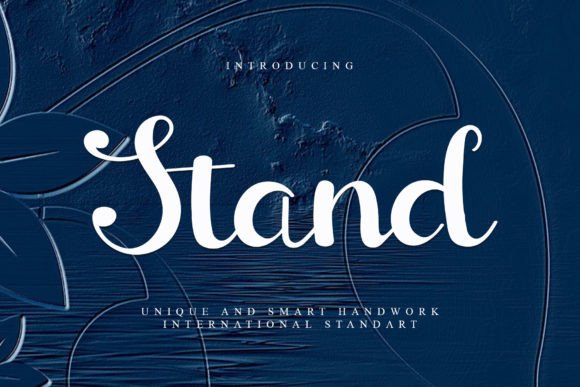
Step into the world of Stand Font, a breathtaking script typeface that dances across your designs with grace and sophistication. This remarkable font, brought to life by the talented giartstudios, is a symphony of creativity, perfectly suited for a myriad of projects that demand a touch of handwritten charm.
With its enchanting strokes and flowing curves, Stand Font evokes a sense of individuality and artistry. It seems to glide effortlessly across the page, capturing attention with its timeless elegance. Whether you're crafting wedding invitations that exude romance or creating greeting cards that convey heartfelt messages, Stand Font adds a layer of refinement that elevates your designs to new heights.
Imagine your designs adorned with Stand Font, transforming into captivating billboards that command attention from afar. Its bold presence ensures your message stands out, leaving a lasting impression on all who behold it. Unleash your creativity and let Stand Font be your muse as you craft logos that embody the essence of your brand. Let it dance across business cards, leaving a trail of elegance in its wake.
But the allure of Stand Font extends far beyond these traditional applications. It's a font that knows no bounds, seamlessly adapting to any project that requires a touch of handwritten artistry. Let it adorn your social media posts, adding a touch of personality to your online presence. Transform your presentations into visual masterpieces, captivating your audience with Stand Font's eloquence.
With Stand Font, you hold the key to unlocking a world of design possibilities. Its versatility is boundless, allowing you to express your creativity in countless ways. It's the perfect companion for those seeking a font that exudes sophistication, elegance, and a dash of whimsy.
So, embrace the allure of Stand Font today. Let its beauty flow through your designs, leaving a trail of enchantment in its wake. Experience the joy of creating with a font that truly understands the art of handwritten expression. Stand Font is more than just a typeface; it's an invitation to let your creativity soar.